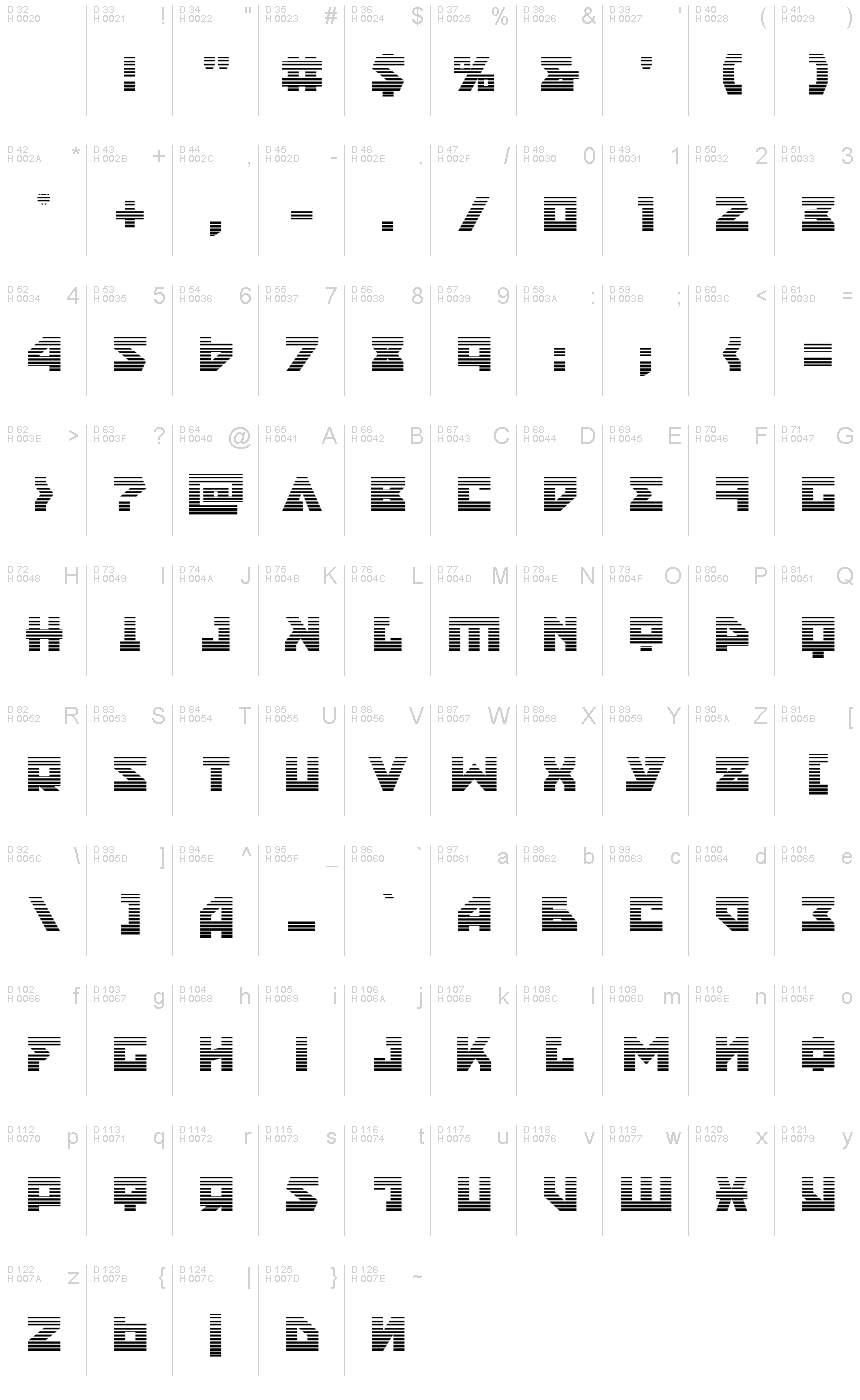
Nyet Gradient
Nyet is a bold, expanded font that exudes a distinct faux-Russian aesthetic. Designed by Daniel Zadorozny, this gradient-infused typeface commands attention with its dynamic, angular letterforms and striking visual impact. The expanded proportions and bold strokes lend a sense of strength and solidity, while the gradient effect adds depth and dimension, creating a captivating and versatile design element.
Nyet's unique style makes it an ideal choice for a wide range of applications, from editorial layouts and branding to packaging and display typography. Its distinctive character and visual interest can elevate any design, whether in print or digital media, and its versatility allows it to be seamlessly integrated into various creative projects.